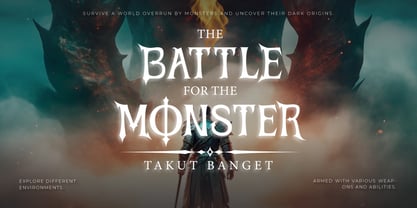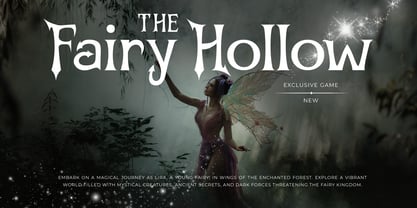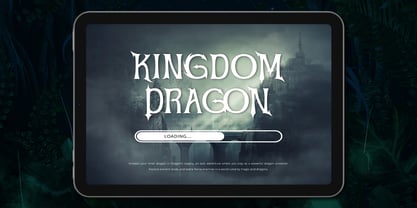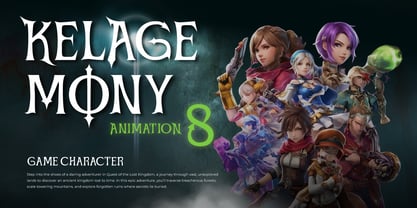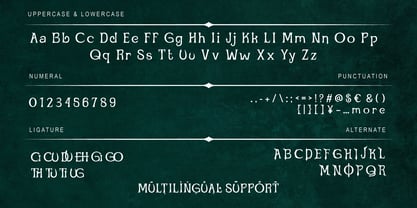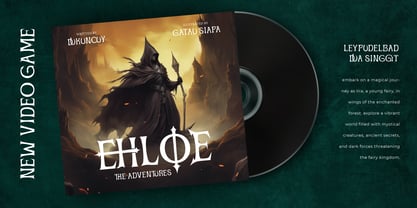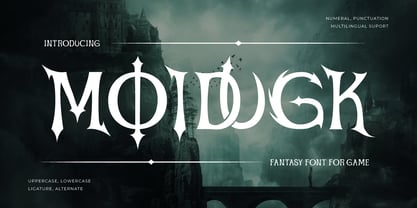
Moidugk
Moidugk is a bold and adventurous fantasy display font designed to bring mystical and legendary vibes to your gaming projects. With its strong, intricate letterforms and magical aesthetics, this font is perfect for fantasy game titles, RPG-themed branding, epic book covers, and mythical storytelling visuals.
Inspired by enchanted realms, ancient runes, and heroic sagas, Moidugk captures the essence of medieval fantasy with its ornate yet powerful design. Each character is crafted to evoke the feeling of a grand adventure, making it the perfect choice for games that immerse players in mythical worlds, legendary battles, and magical quests.
Whether you're working on a fantasy MMORPG, tabletop RPG campaign, or a high-fantasy book cover, Moidugk delivers the epic and immersive look you need. Unleash the magic and elevate your designs with the enchanting presence of this one-of-a-kind fantasy font!
- All glyphs and Feature
- Fonts include Multilingual: Support for 85 languages.